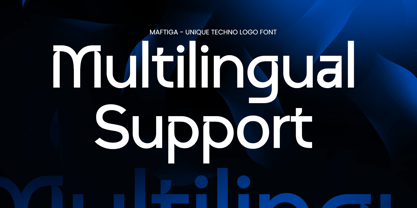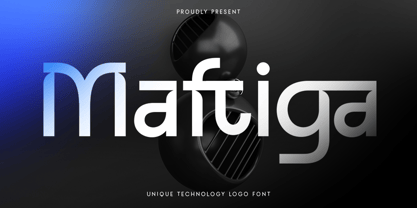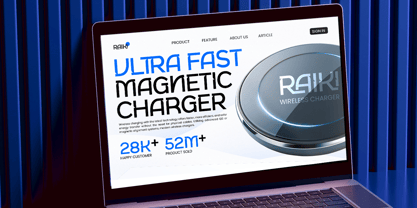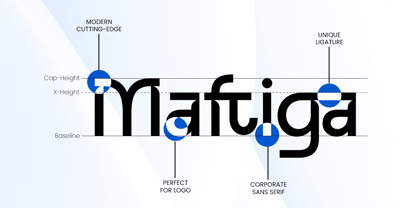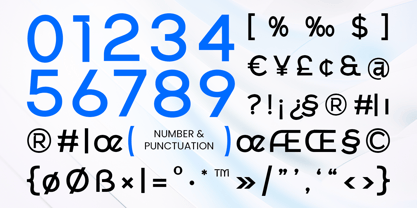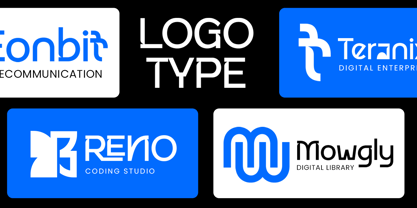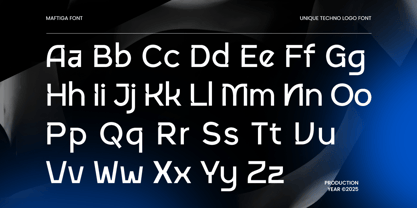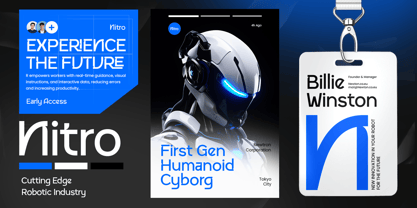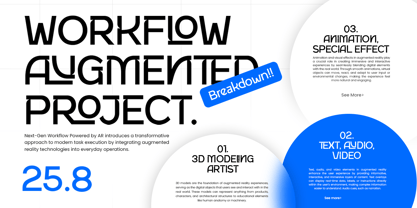
Maftiga
von Sensatype Studio
Die Schriftfamilie Maftiga wurde von Zamroni Hamzah entworfen und von Sensatype Studio veröffentlicht. Maftiga enthält 1 Stile. Mehr über diese Familie
Maftiga is a unique technology logo font crafted to represent innovation, precision, and modernity. With clean geometric shapes and a futuristic aesthetic, this typeface is perfect for tech companies, startups, and creative studios aiming to build a digital-forward brand identity.
Each character in Maftiga features sharp detailing and consistent spacing that reflect cutting-edge technology and forward-thinking design. It’s ideal for logos, UI/UX interfaces, software products, and promotional materials that demand a sleek, professional look.
Blending minimalist form with a futuristic tone, Maftiga brings clarity and visual strength to any project — whether you’re designing for apps, esports, or next-generation corporate branding.
Maftiga – Unique Technology Logo Font Features
• Futuristic geometric design for digital and tech branding
• Perfect for logos, startups, software, and digital interfaces
• Modern and minimal construction for versatile applications
• Great readability across print and web designs
• Uppercase, lowercase, numerals, and punctuation included
• OpenType features for advanced typographic creativity
Create bold and futuristic identities with Maftiga – the ultimate technology logo font for modern, digital, and innovative design. ⚙️🚀
Designer: Zamroni Hamzah
Foundry: Sensatype Studio